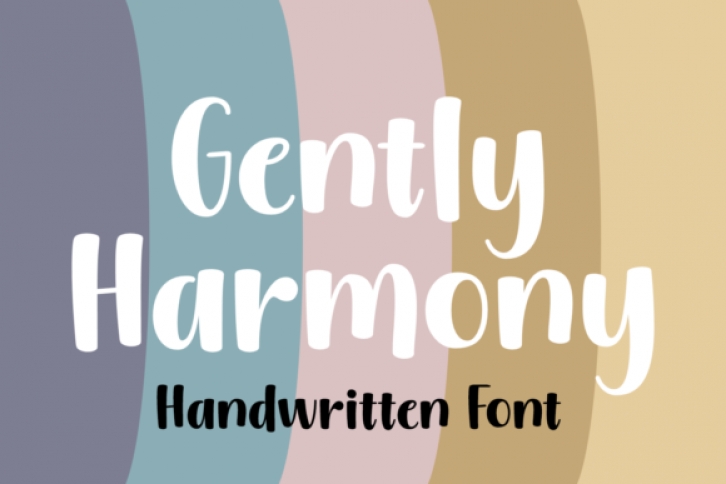
Gently Harmony is a bold and authentic display font. It is the best choice for creating eye catching logos, branding and quotes. Every letter has a unique and beautiful touch, which will make your design come alive!